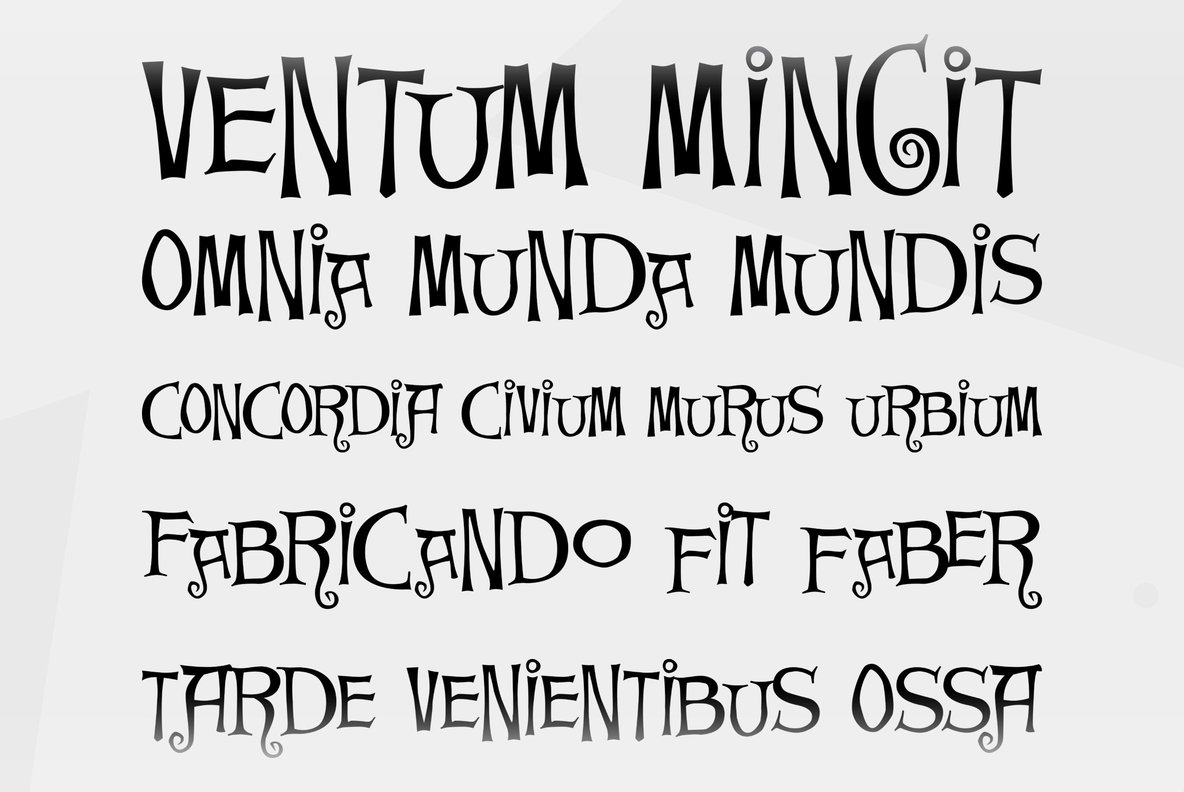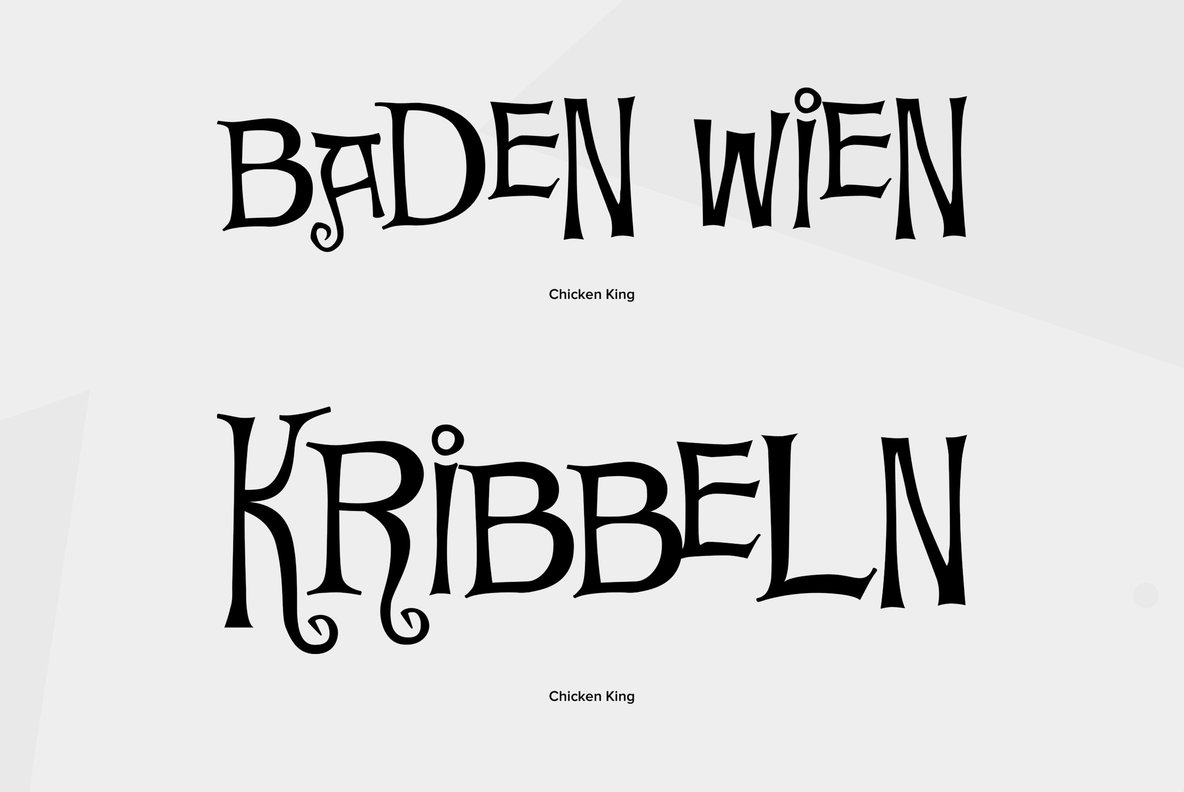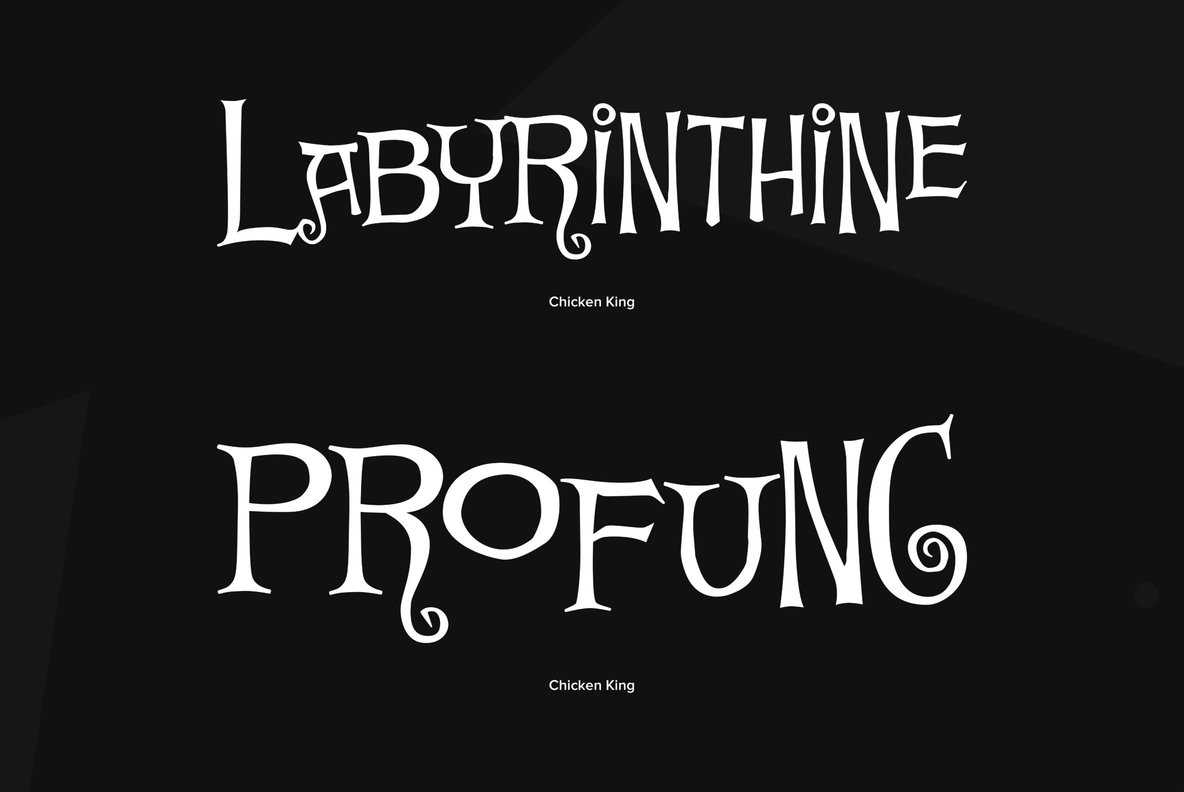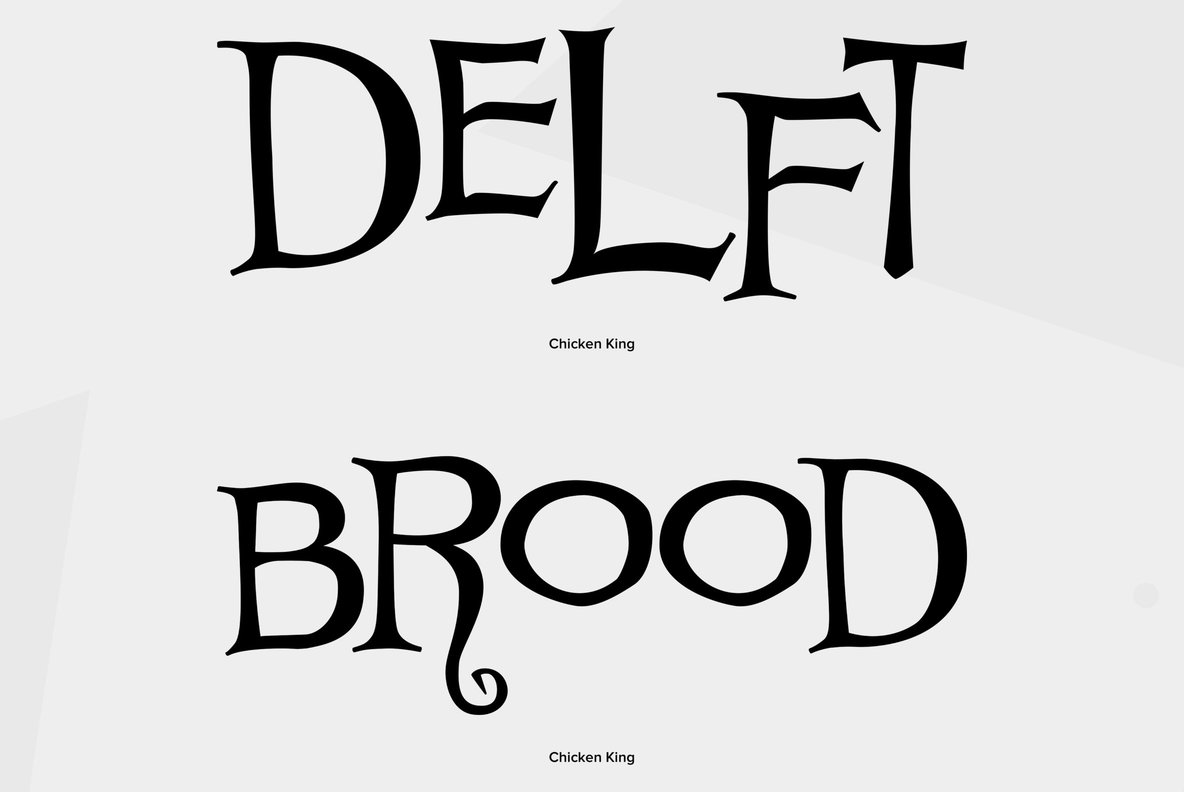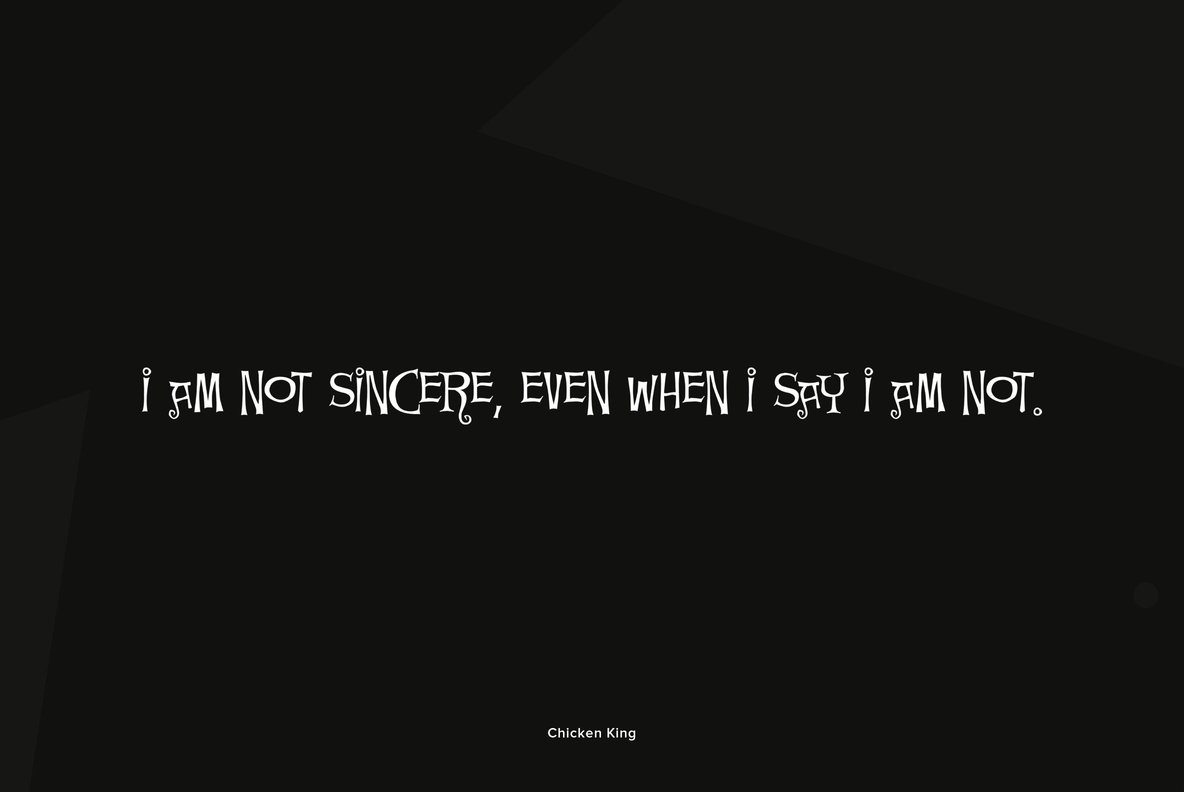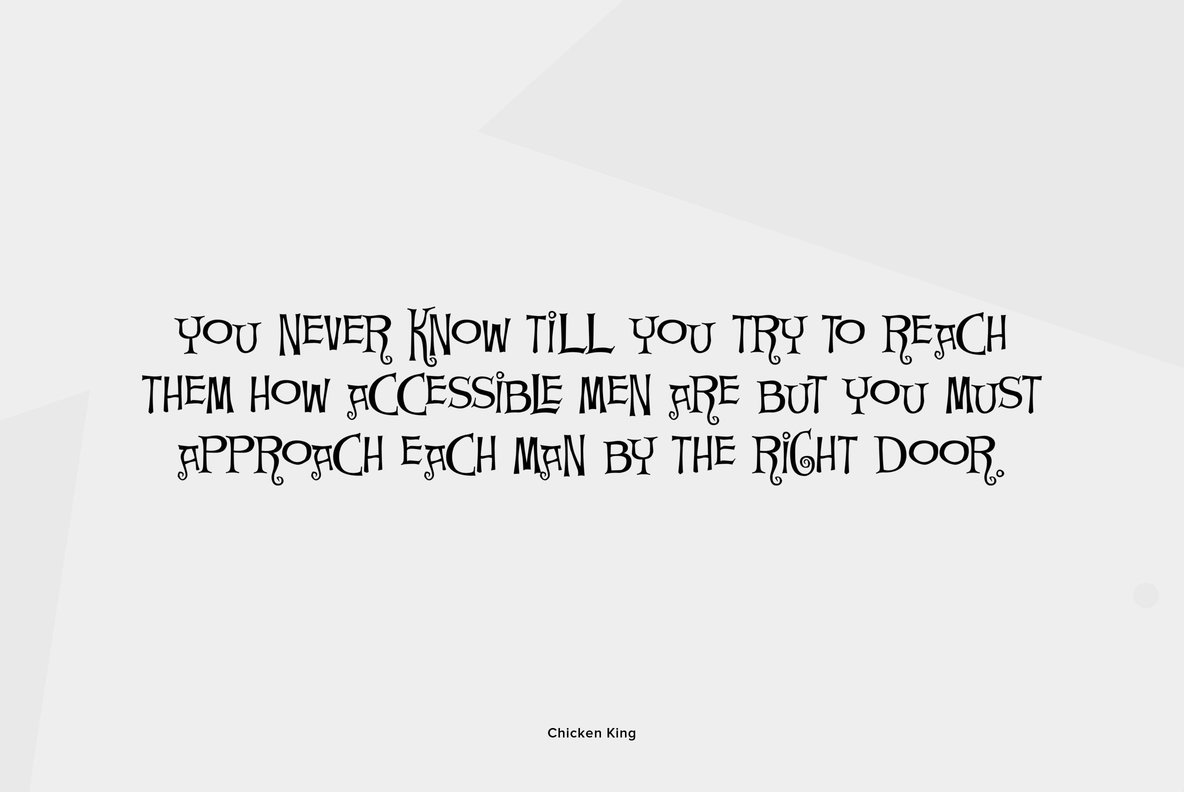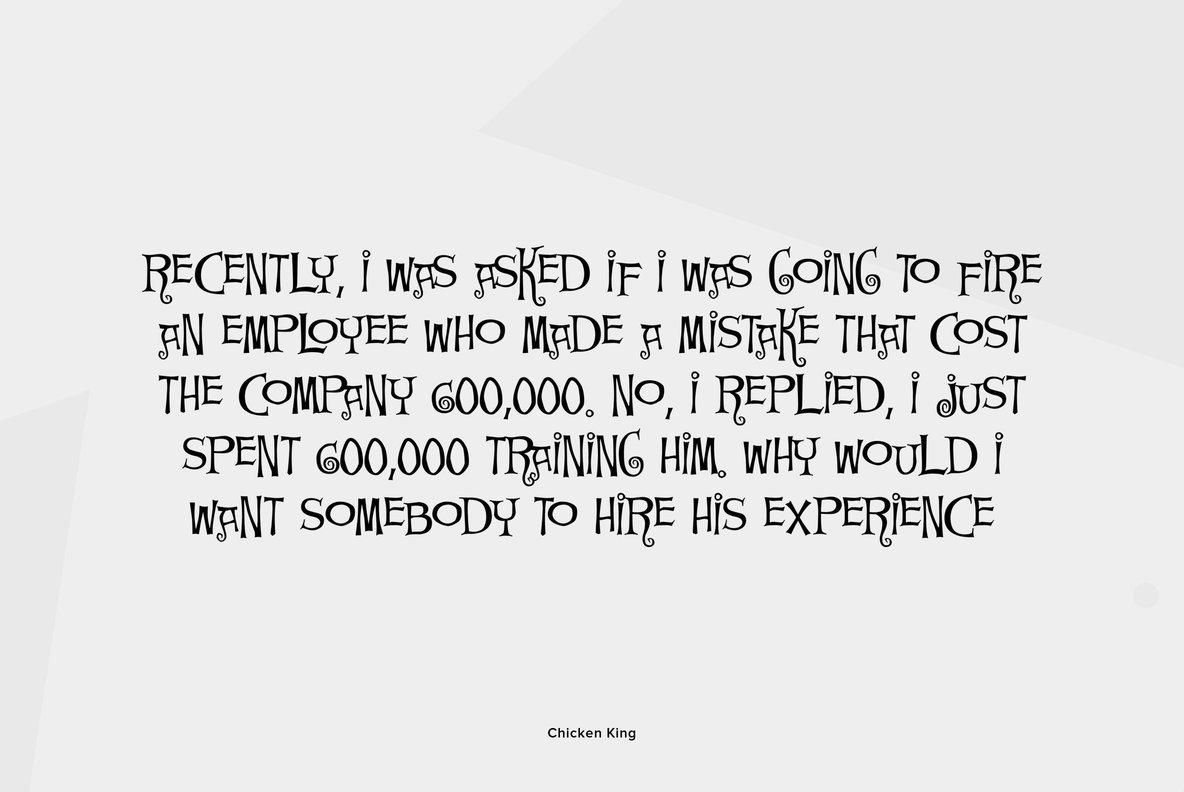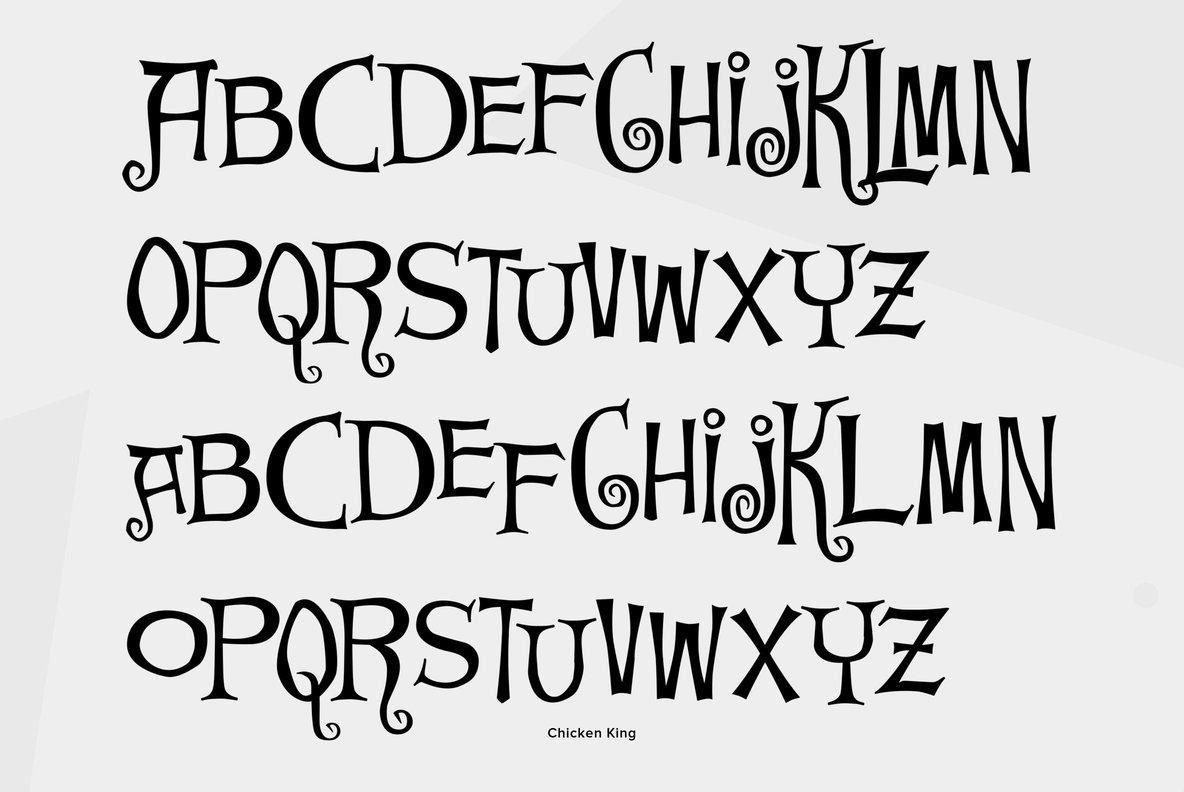
Chicken King
Foundry: Font Diner
Nat King Cole was a merry old sole with a voice of gold and his own TV show! Celebrate this 1950s crooner in style with this fun offbeat retro serif font!